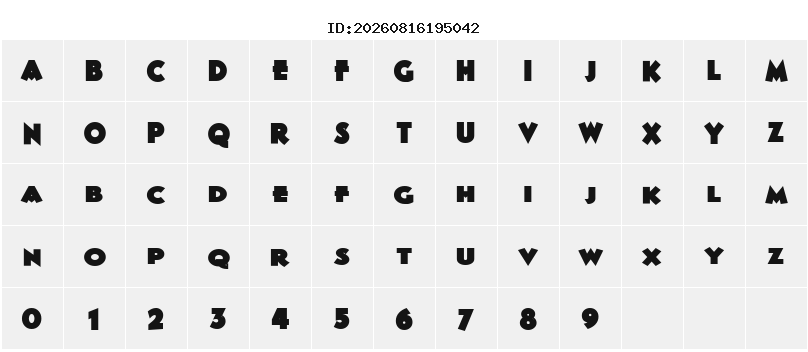
Spatz Preview
• Font Name: Spatz
• Full Font Name: Spatz
About Spatz.ttf
Spatz.ttf is a modern, elegant sans-serif font designed for ultimate readability and visual harmony. Perfect for branding, headlines, web design, and print materials.